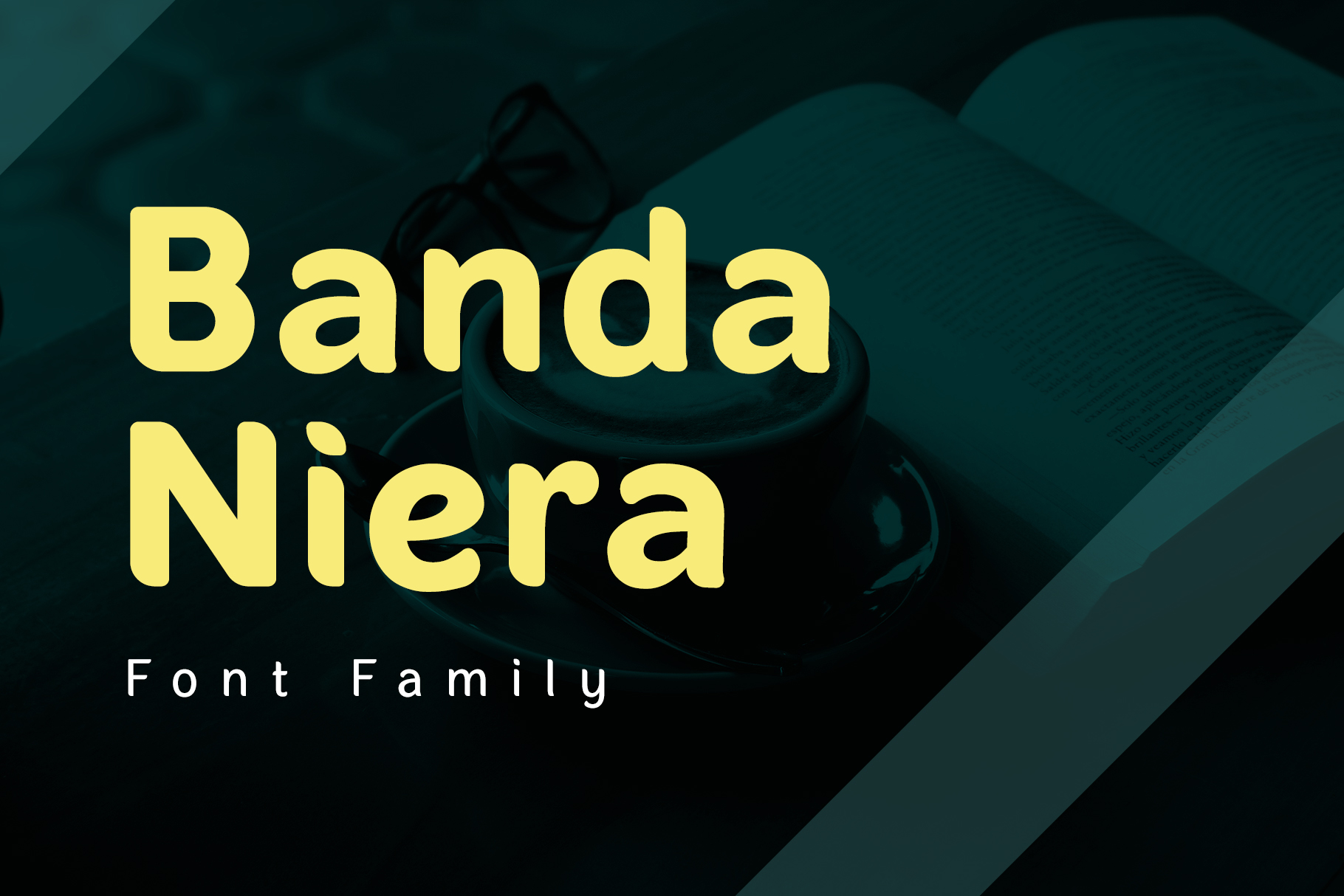
Banda Niera Font
About Banda Niera
Banda Niera is a modern sans serif font with 3 different weights plus 2 italics. Banda Niera has strong curvy on the edges with different curves intensity that gives a calligraphic taste. Inspired by bold typography and joyful designs. Banda Niera also has high readability that you can apply on editorial purposes.